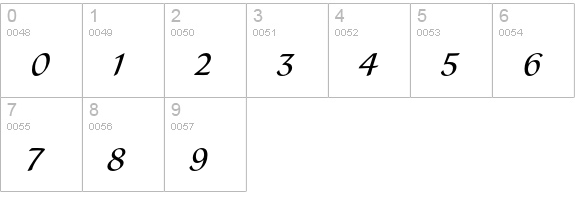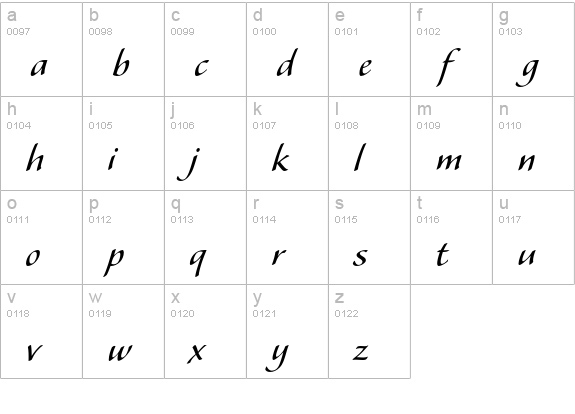
The Alexa Std font is a modern and stylish typeface that combines elegance with readability. Its clean lines and simple design make it perfect for a wide range of projects, from branding to editorial design. With a versatile range of weights and styles, Alexa Std is sure to meet all your typography needs. Best of all, Alexa Std is completely free to download at FontsMarket.com. This means you can enhance your designs with this beautiful font without having to worry about any additional costs. Don't miss out on the opportunity to add Alexa Std to your font collection today!